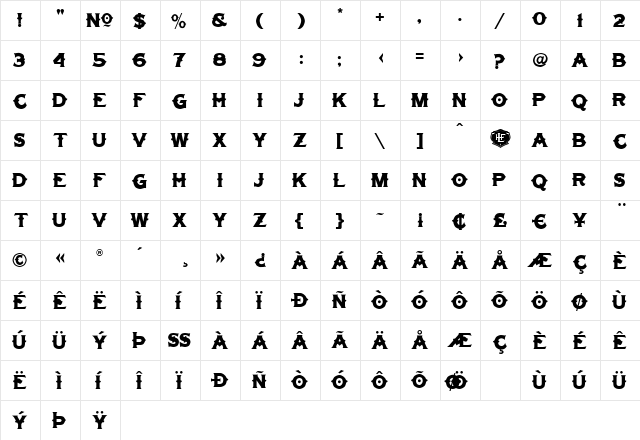
LHF Tonic NERVE Regular
Design Context for LHF Tonic NERVE Typeface
LHF Tonic NERVE is a composed and adaptable typeface that performs quietly and consistently across a wide range of design contexts.